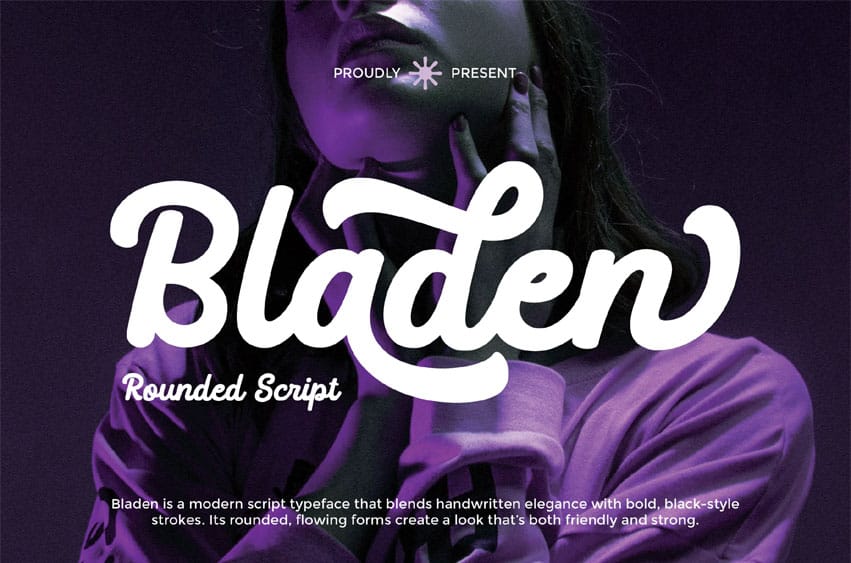
Bladen Font is a modern script typeface that blends boldness with playful elegance. Inspired by blackletter brush strokes and retro sign painting, Bladen features rounded, flowing forms that feel both confident and friendly. Its smooth curves and strong weight make it perfect for branding, posters, logos, and any design that needs expressive, handwritten flair.
- Uppercase alphabet A-Z
- Lowercase alphabet a-z
- Numbers 0-9
- Some punctuation
- Alternates & Ligatures